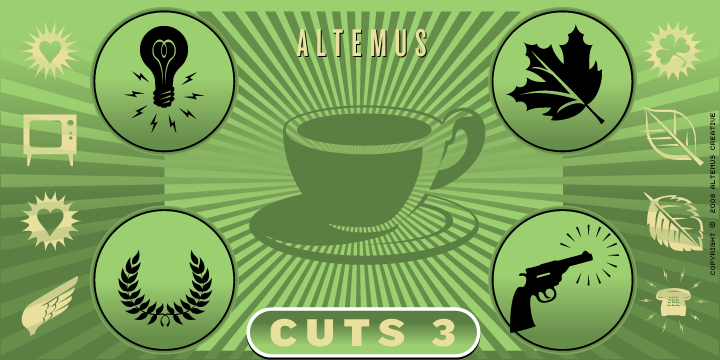
Altemus Cuts Three
Designed by: Robert Altemus
Designed when: 1996
Altemus Cuts Three
This font contains 174 characters; leaves, maple leaves, telephones, fax machine, floppy disks, wine bottle, wine glasses, coffee cups, wings, TV sets, fronds, revolvers, guitars, movie cameras, various glowing icons, martini, envelope and light bulbs.